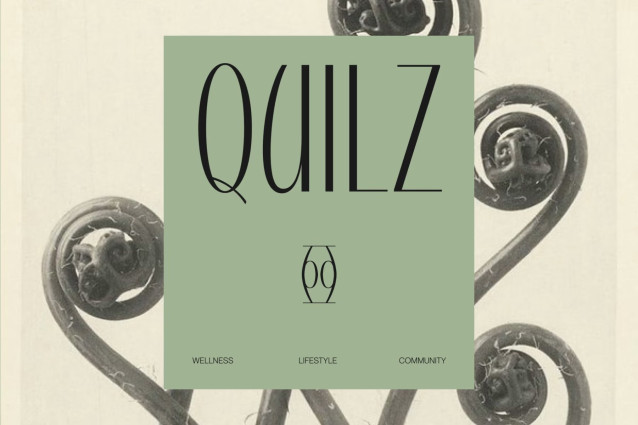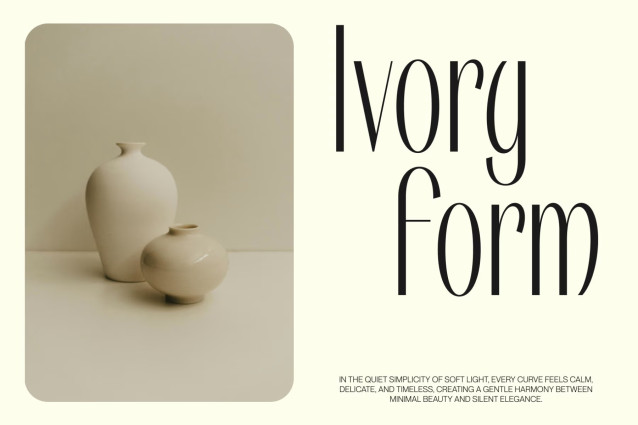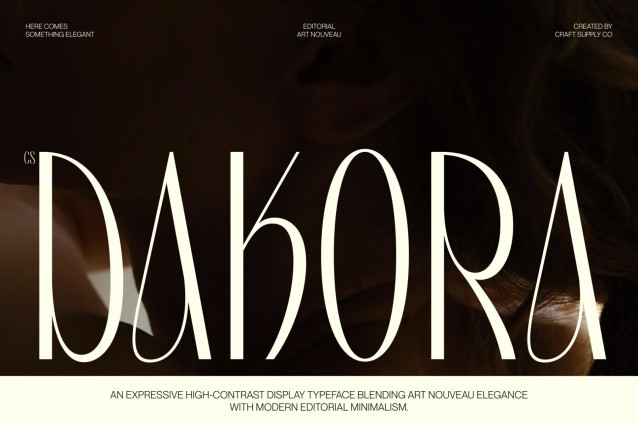
CS Dakora – Elegant Sans Serif Font
CS Dakora – Modern Sans Serif with Playful Elegant Curves
Modern Sans Serif with Fresh Contemporary Style
This is a fresh and modern sans serif font designed to bring elegance and personality into contemporary typography. With its balanced structure and playful beauty curves, this typeface creates a refined visual identity that feels stylish, approachable, and full of charm. It is crafted for designers who want typography that appears modern while maintaining a soft and expressive character.
Playful Curves with Elegant Rhythm
The defining feature of this font lies in its graceful curves and flowing forms that add warmth and individuality to every letterform. These subtle playful details create a lively rhythm across text, giving the font a visually engaging appearance without sacrificing clarity or sophistication. The result is typography that feels elegant yet friendly.
Clean Structure with Stylish Personality
This font balances modern minimalism with decorative softness, creating a versatile typeface that adapts beautifully across various creative styles. Its clean construction ensures excellent readability, while its playful curves introduce a sense of beauty and contemporary flair that elevates any composition.